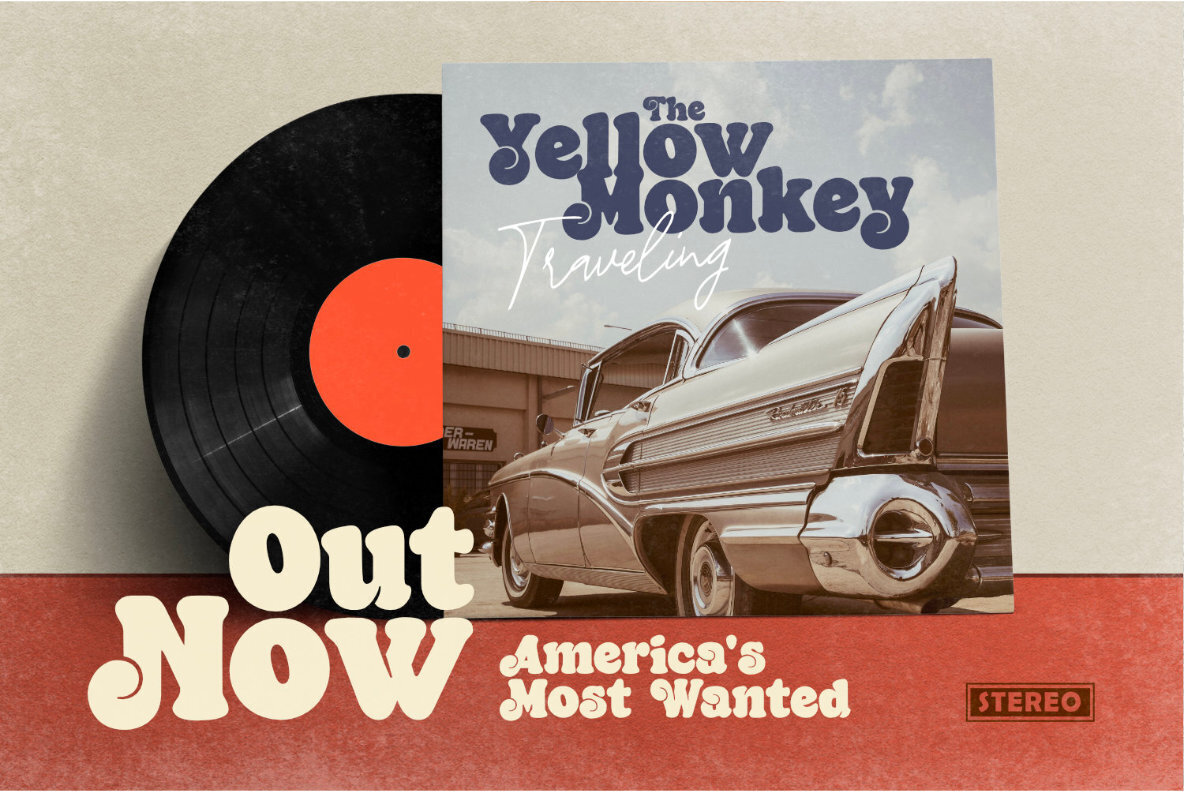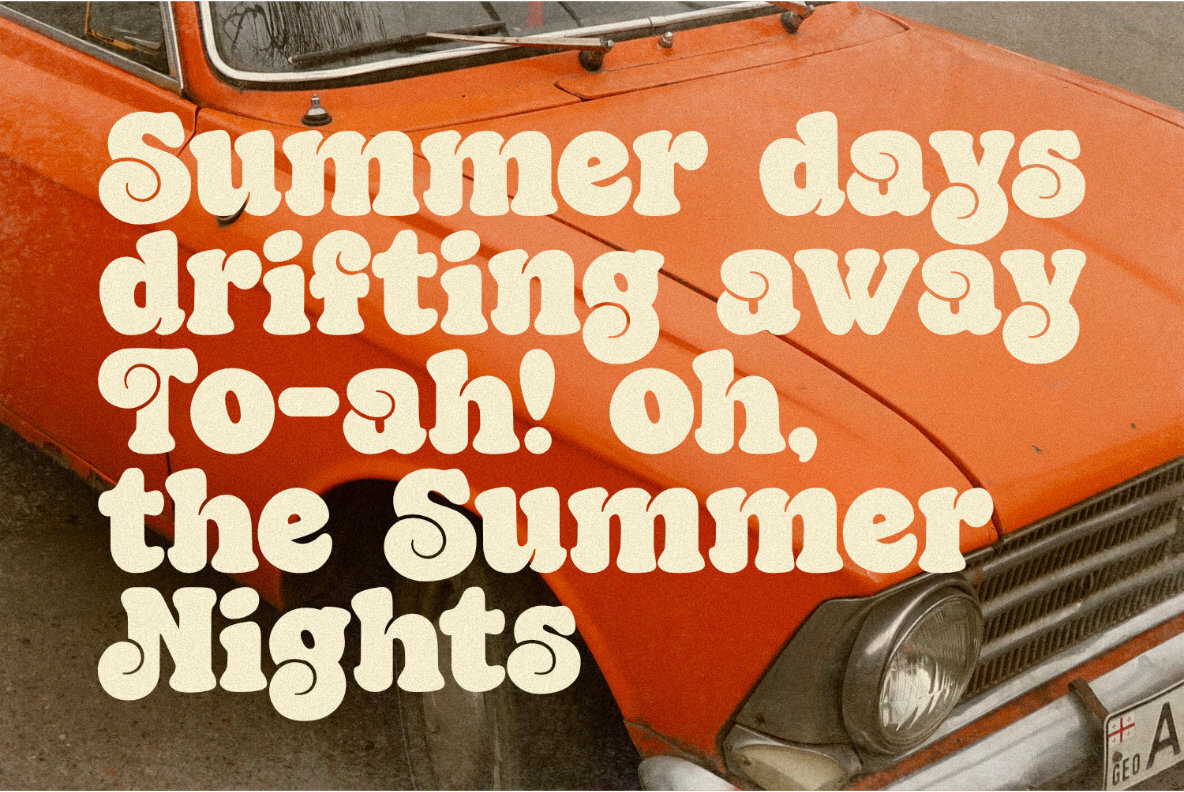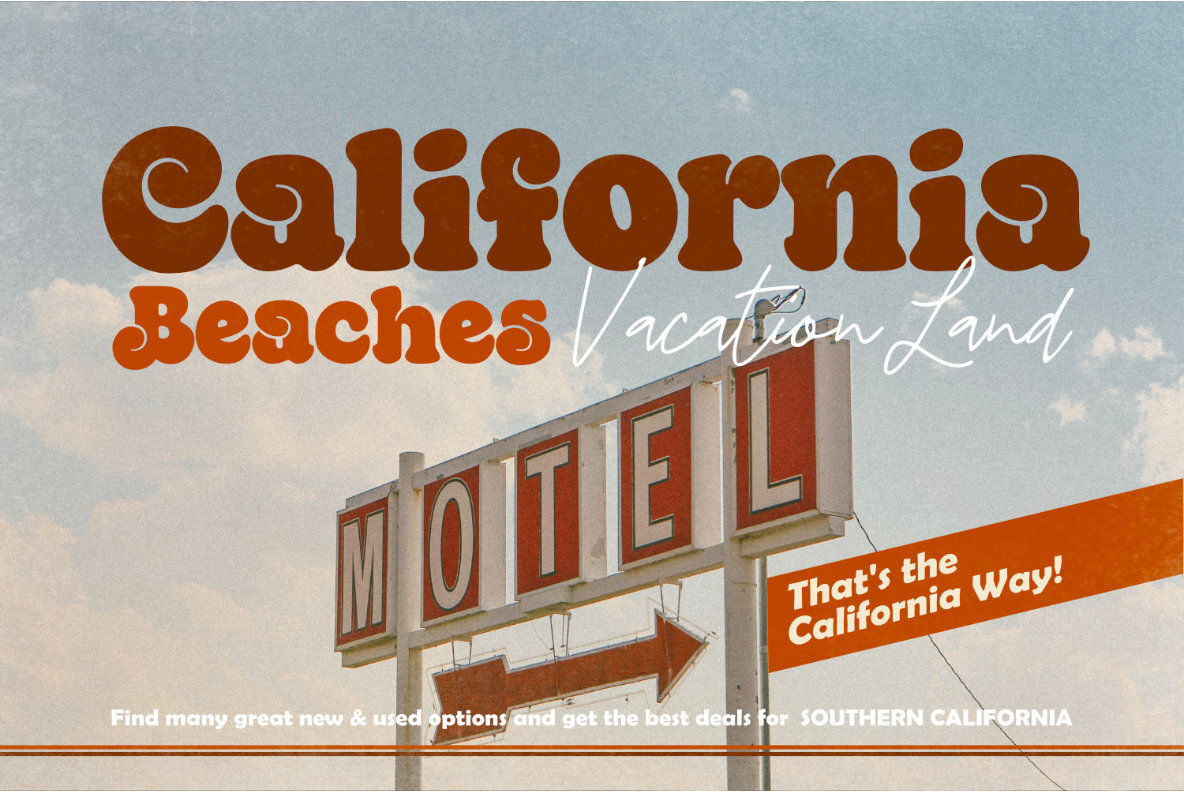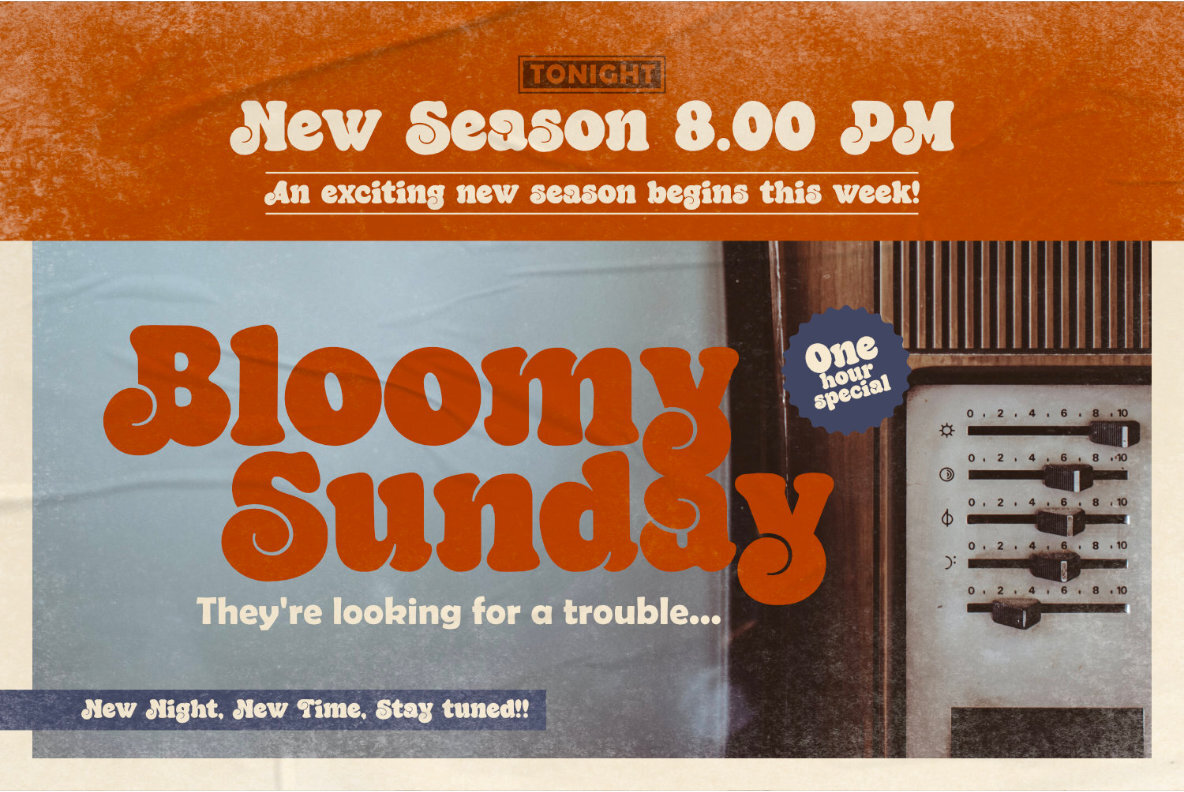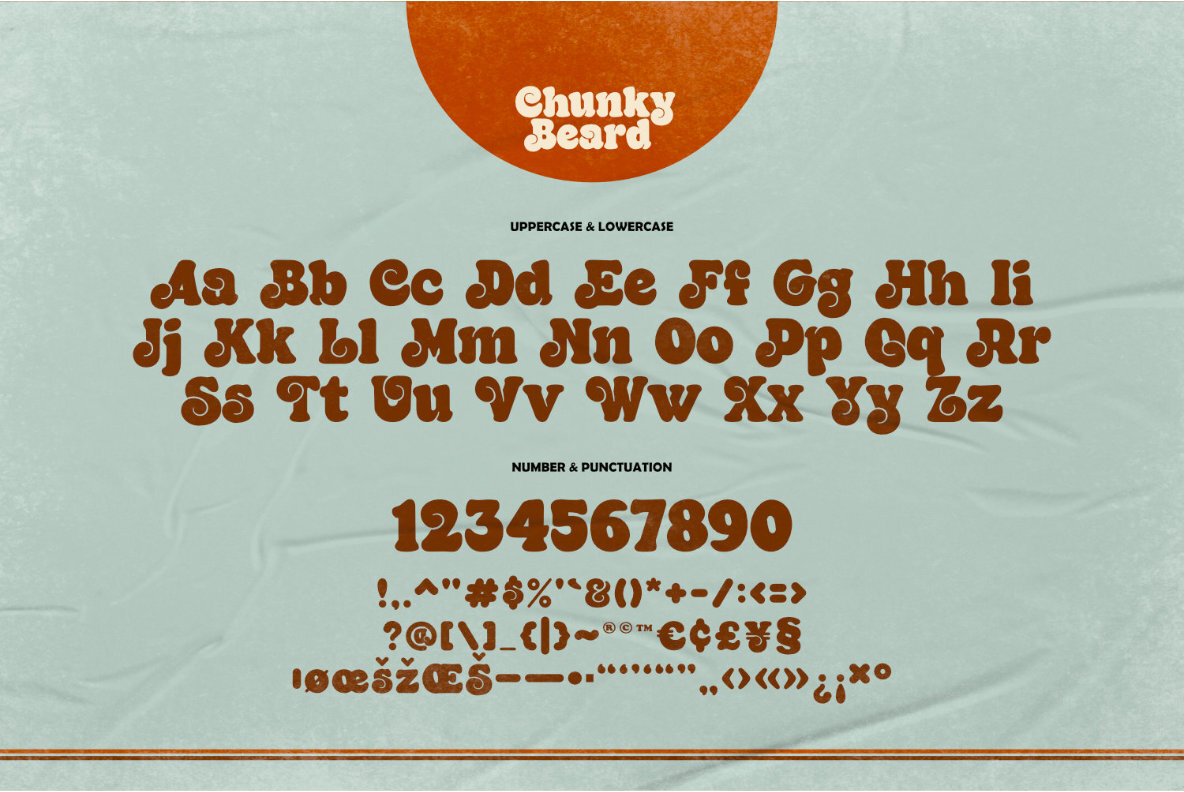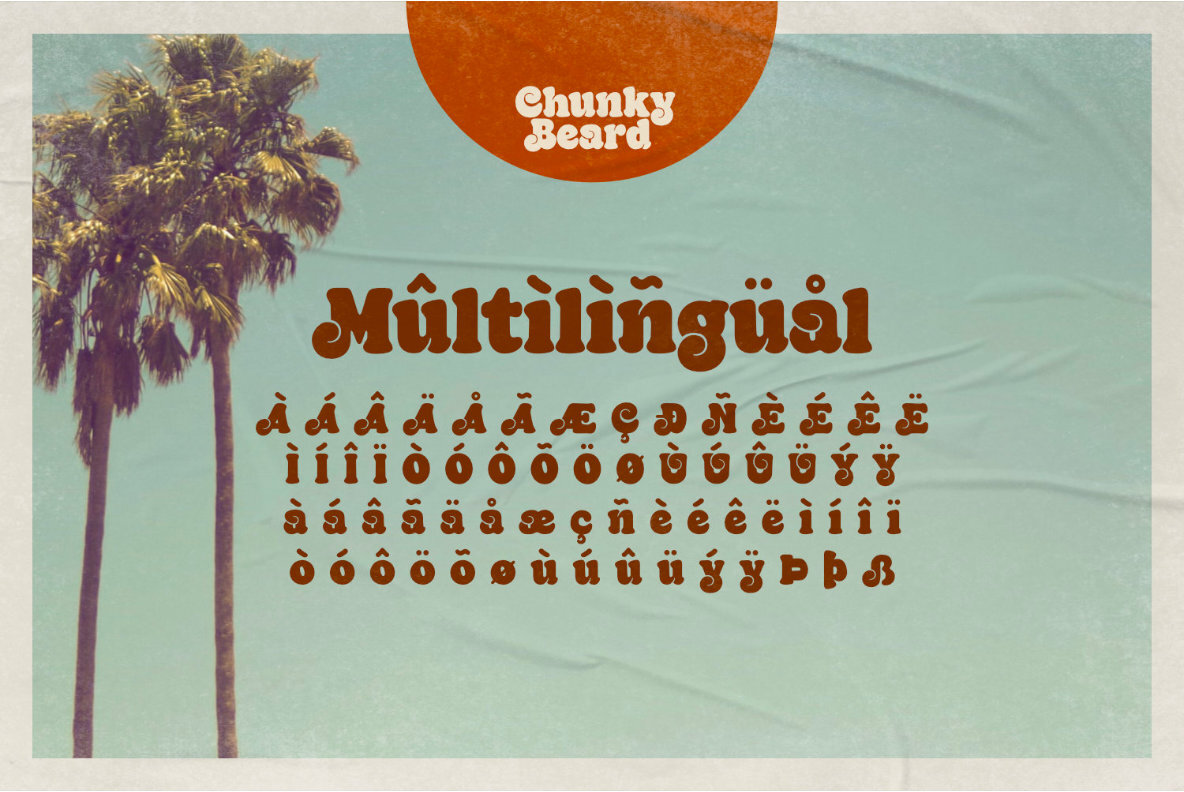
Introducing Chunky Beard, a vintage font inspired by the bold, rounded letterforms of the 1960s. Picture the warm nostalgia of that era, filled with vibrant colors and carefree attitudes. Chunky Beard captures this spirit with its inviting and distinctive appeal, making it the perfect choice for adding a touch of retro charm to your projects.
Chunky Beard's characteristics include heavy, wide strokes without clear borders, rounded edges, exaggerated curves, and pronounced serifs. Consistent stroke weight across letters further enhances its unique appearance, evoking the unmistakable vibes of 60s vintage typography.
This versatile font is ideal for a variety of design projects, from posters and flyers to logos and branding materials. Chunky Beard instantly grabs attention with its lively, fun, and vintage aesthetic, making it a standout choice for any design that aims to evoke nostalgia and retro vibes. Whether you're working on a movie title, corporate logo, quote, poster design, or magazine layout, Chunky Beard adds a chic and stylish text overlay to any background image.